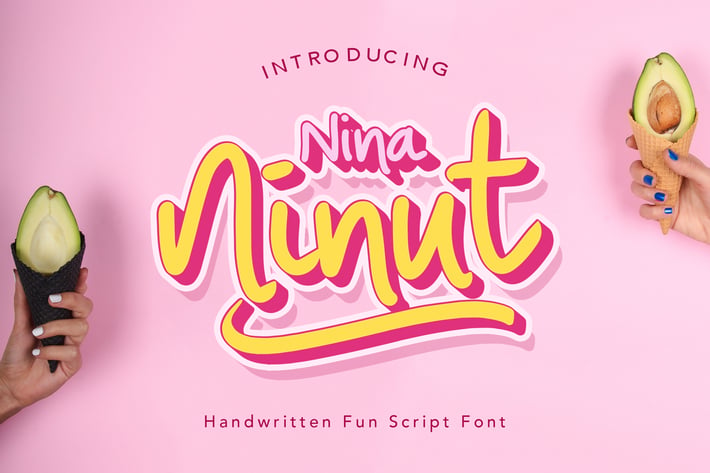
Nina Ninut - Fun Handwritten Script Font
A great product is not just about the product itself, but also how you present it in a beautiful way. Nina Ninut is made for you to make your brand/product more beauty. It's a handcrafted fun script font. Nina Ninut is suitable for any design needs; logo, quote, wedding, book, banner, poster, print media, promotion, business card, profile, fashion, makeup etc.
Main Features:
- Uppercase & Lowercase letters
- Numbering and Punctuation
- Alternative fonts